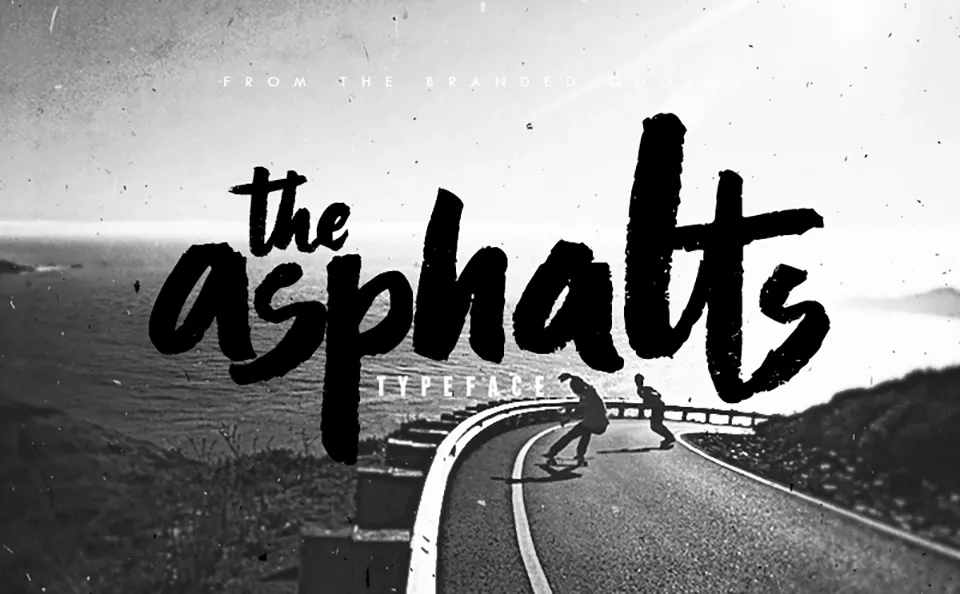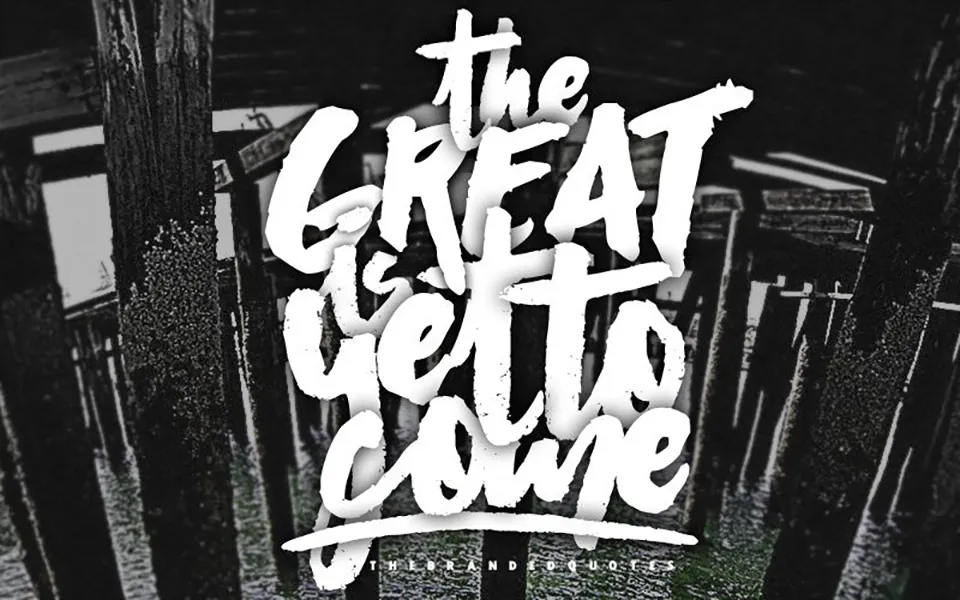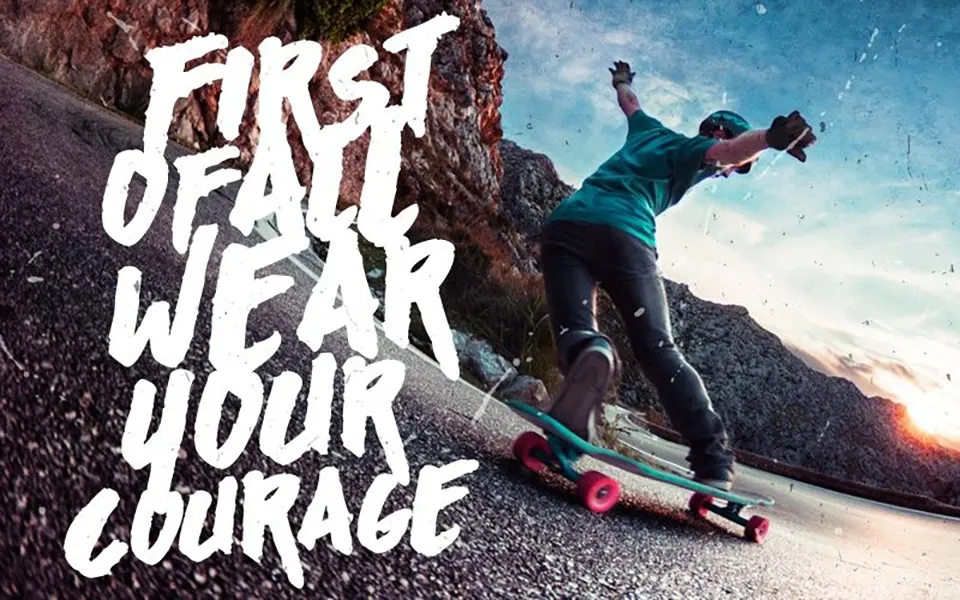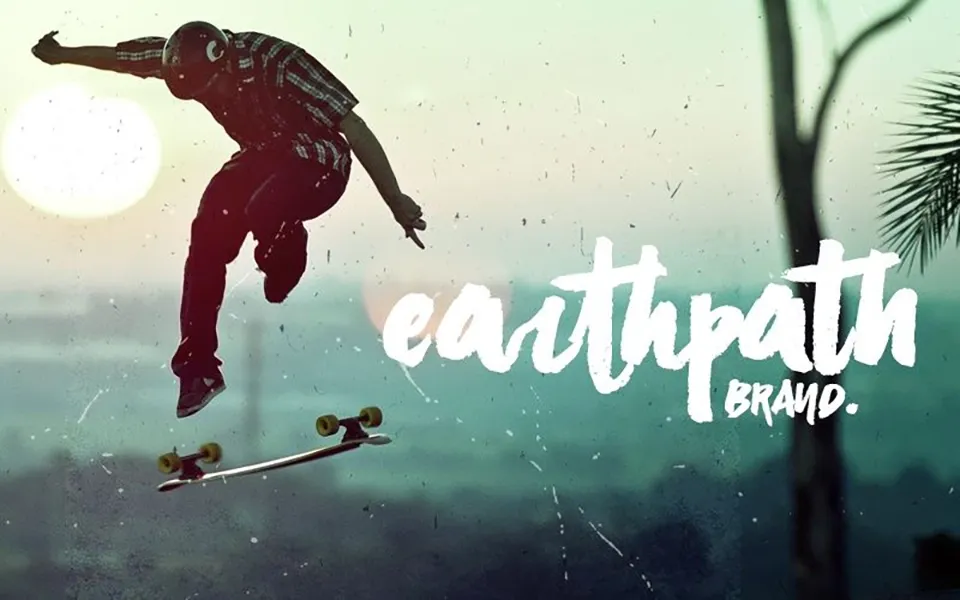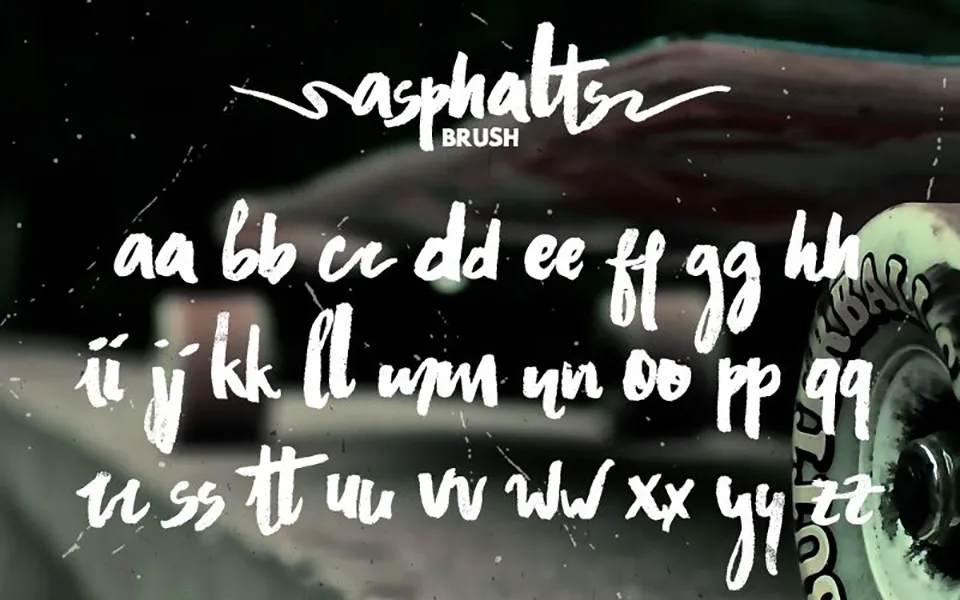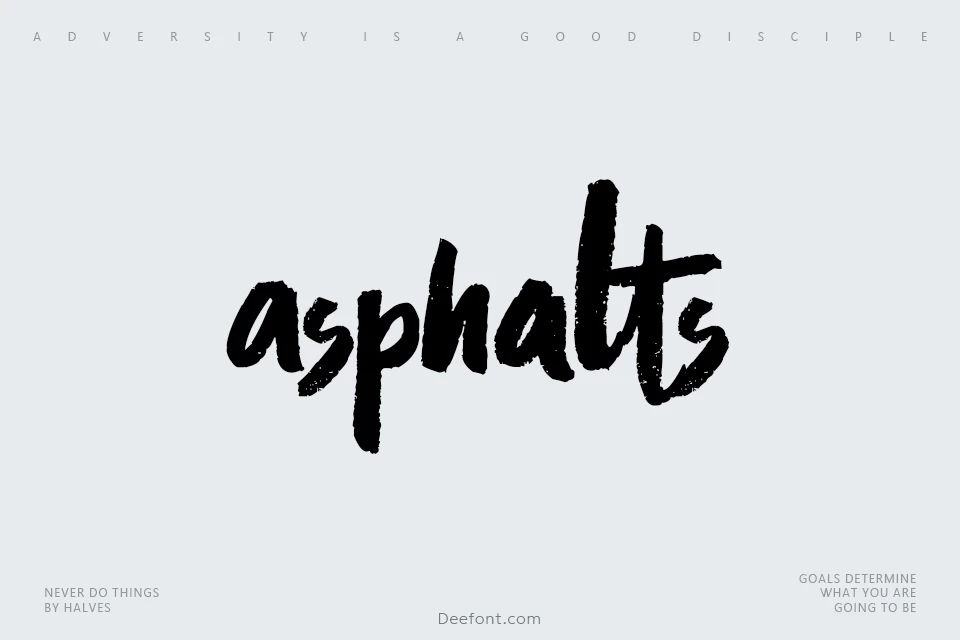
Asphalts Font
Asphalts Font is a dynamic brush script typeface characterized by rough, heavy strokes and an easy-going script feel. Inspired by the passion of downhill skating, it’s designed to uplift your brand name, logotype, identity, apparel, and presentations. The font’s unique energy makes it perfect for bold, expressive designs-simply type your word with Asphalts Brush and enjoy its distinctive character. The family includes a lowercase-focused brush style and an all-caps display variant, offering versatility for creative typography.